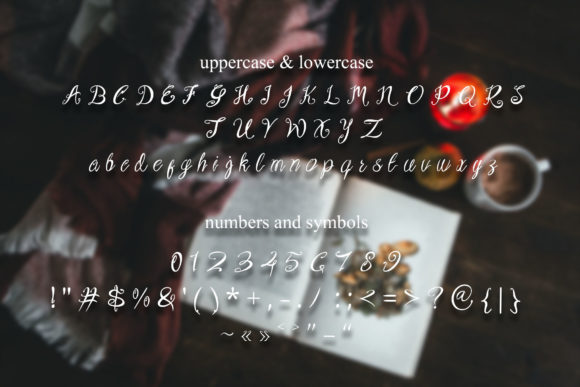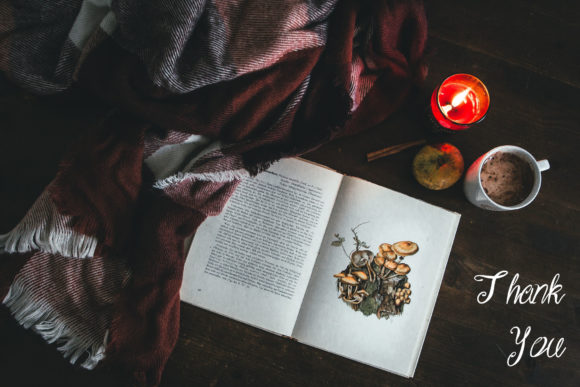
Introducing Art Class Font: Elevate Your Designs with Elegance and Sophistication
In the world of typography, a font can make or break a design. For designers and crafters seeking to add a touch of elegance and sophistication to their projects, the Art Class Font is an exceptional choice. This beautiful, handwritten font is designed to bring a sense of luxury and refinement to any design, making it perfect for a wide range of applications, from branding and advertising to packaging and digital media.
What Makes Art Class Font Stand Out?
Art Class Font is an elegant and flowing handwritten font that exudes class and sophistication. Its calligraphic influences are evident in its fluid strokes and beautiful swashes, which add a touch of drama and flair to any design. The font’s contemporary feel ensures that it remains fresh and relevant, making it an excellent choice for designers looking to create modern, yet timeless designs.
One of the standout features of Art Class Font is its PUA (Private Use Area) encoding. This means that users can access all of the font’s glyphs and swashes with ease, allowing for greater flexibility and creativity in their designs. With PUA encoding, designers can easily insert swashes, ligatures, and other special characters to add an extra layer of elegance and sophistication to their work.
Art Class Font is an incredibly versatile font that can be used in a wide range of design applications. Its elegant and refined aesthetic makes it perfect for:
- Branding and Advertising: Create stunning logos, business cards, and ad campaigns that exude luxury and sophistication.
- Packaging Design: Add a touch of elegance to product packaging, labels, and tags.
- Digital Media: Use Art Class Font to create beautiful social media graphics, blog headers, and website titles.
- Crafting and Scrapbooking: Add a personal touch to handmade crafts, scrapbook pages, and journal entries.
Tips for Using Art Class Font Effectively
To get the most out of Art Class Font, here are a few tips to keep in mind:
- Use it sparingly: Art Class Font is a statement font, so use it sparingly to add emphasis and elegance to your designs.
- Experiment with swashes: Take advantage of the font’s PUA encoding to experiment with different swashes and glyphs.
- Pair it with complementary fonts: Pair Art Class Font with complementary fonts to create a unique and visually appealing typography combination.
Art Class Font is an exceptional choice for designers and crafters seeking to add a touch of elegance and sophistication to their projects. With its beautiful, flowing script and PUA encoding, this font offers endless possibilities for creative expression. Whether you’re working on a branding campaign, packaging design, or handmade craft, Art Class Font is sure to elevate your designs to the next level.